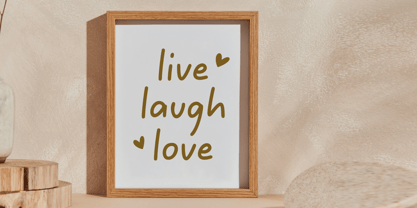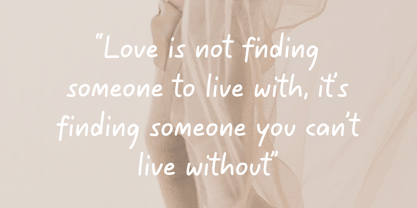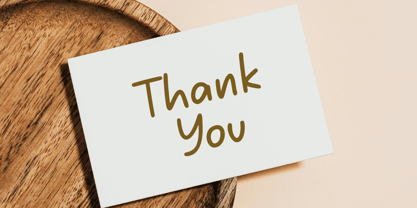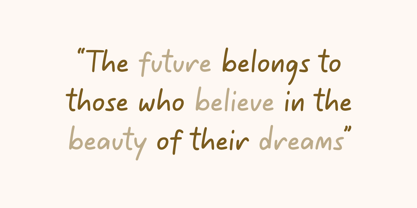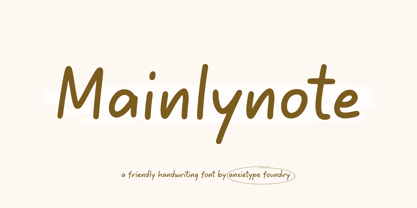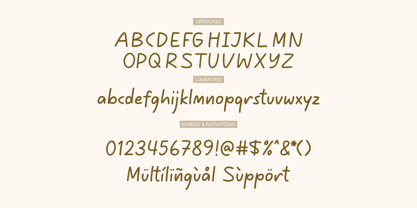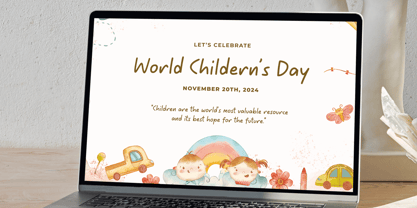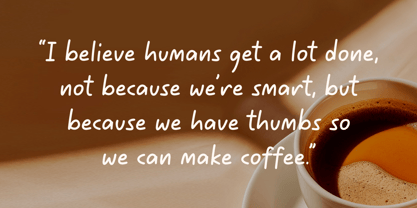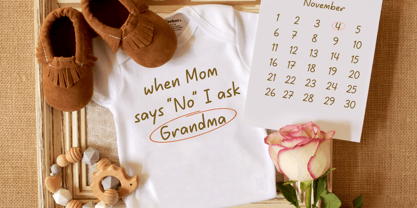
Mainly Note
by Anxietype Foundry
The Mainly Note Font Family was designed by Annas Rifky Anhar and published by Anxietype Foundry. Mainly Note contains 1 styles. More about this family
Mainly Note a sleek, versatile font meticulously crafted by Anxietype Foundry. Perfect for an array of creative needs such as captivating quote designs, through to stylish birthday layouts, Craftig, invitations, books, planners, and more. Imbue your design projects with the distinct aesthetics of “Mainly Note” enabling you to bring your unique vision to life.
Designers: Annas Rifky Anhar
Foundry: Anxietype Foundry